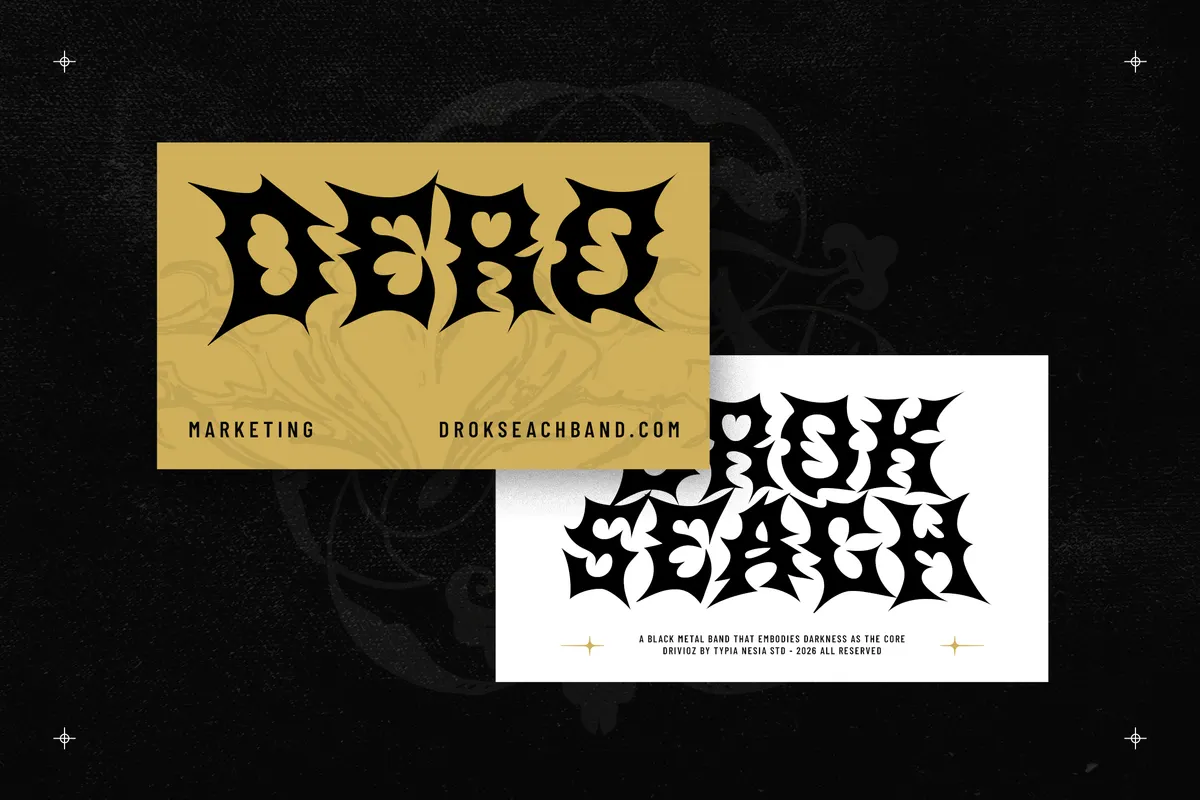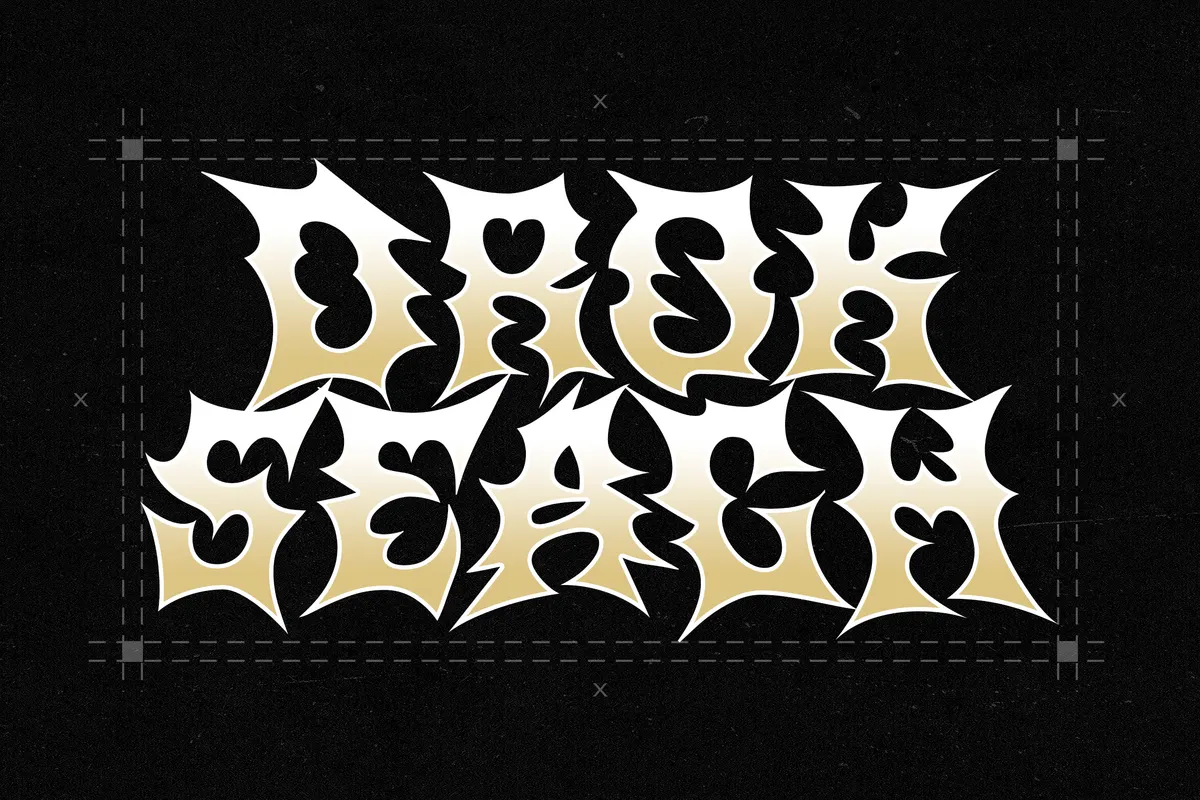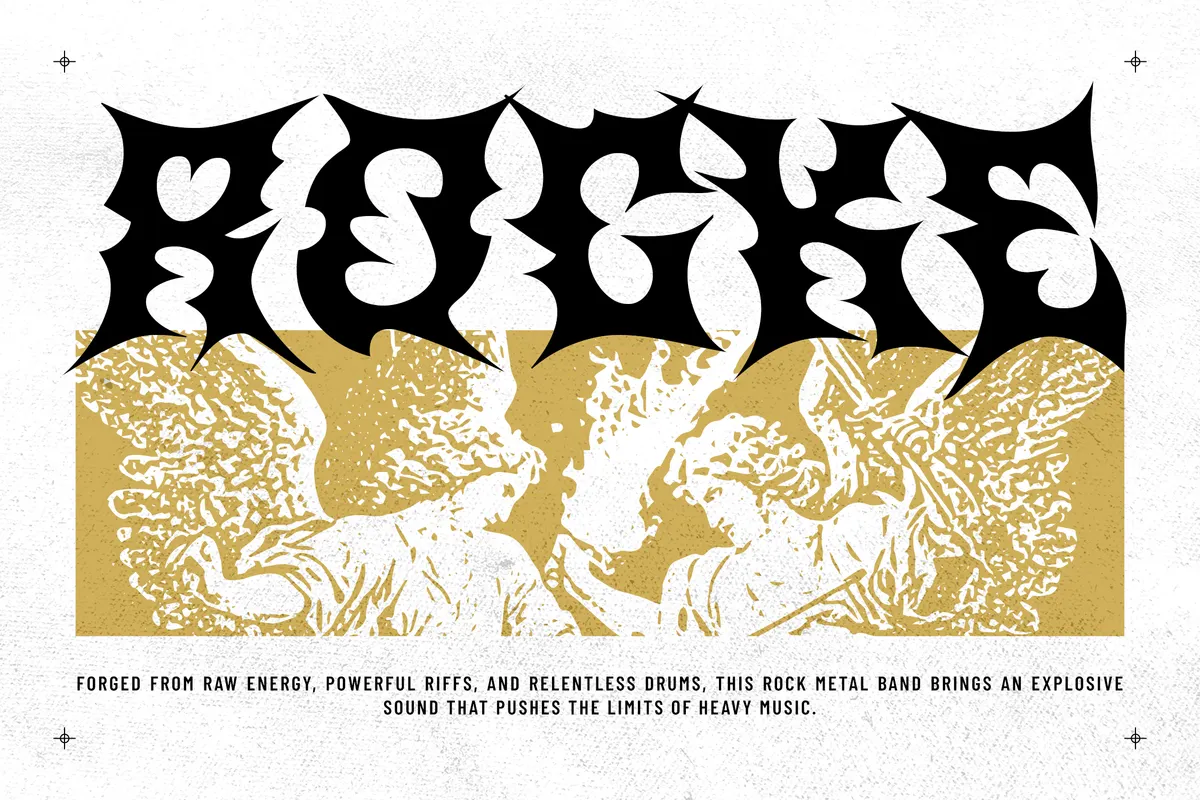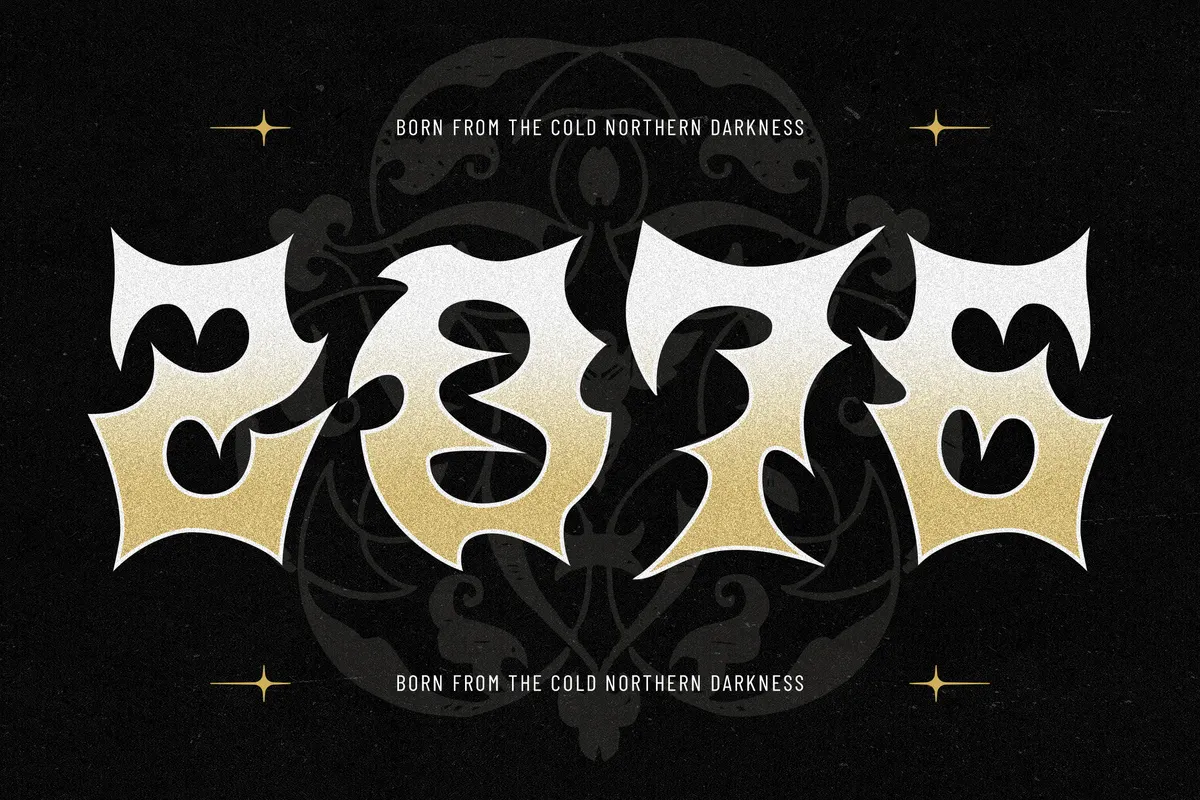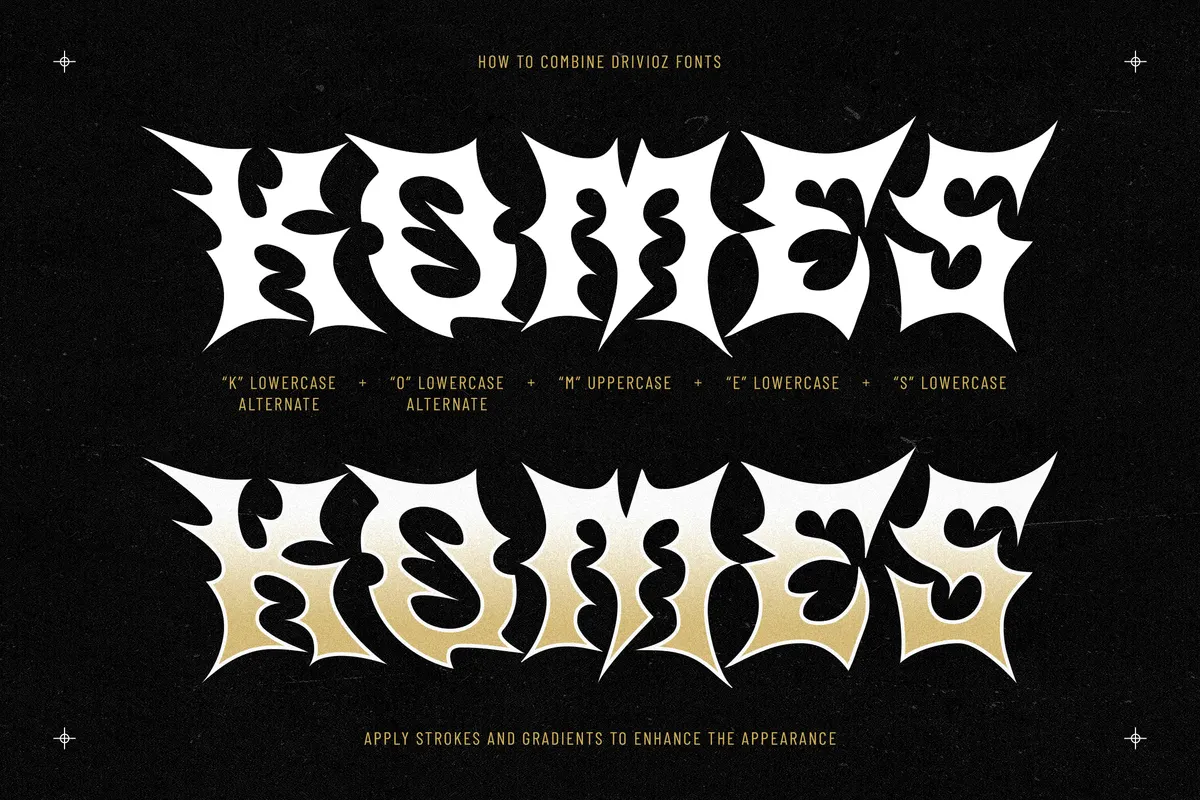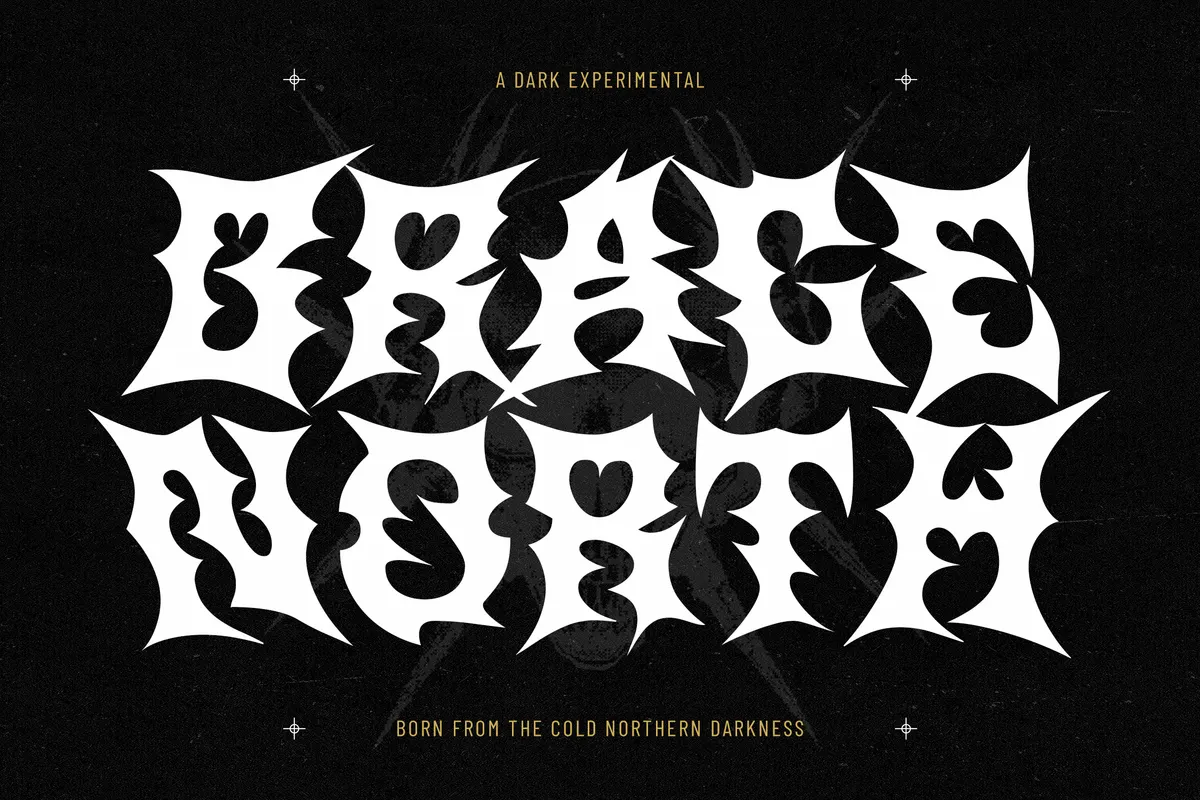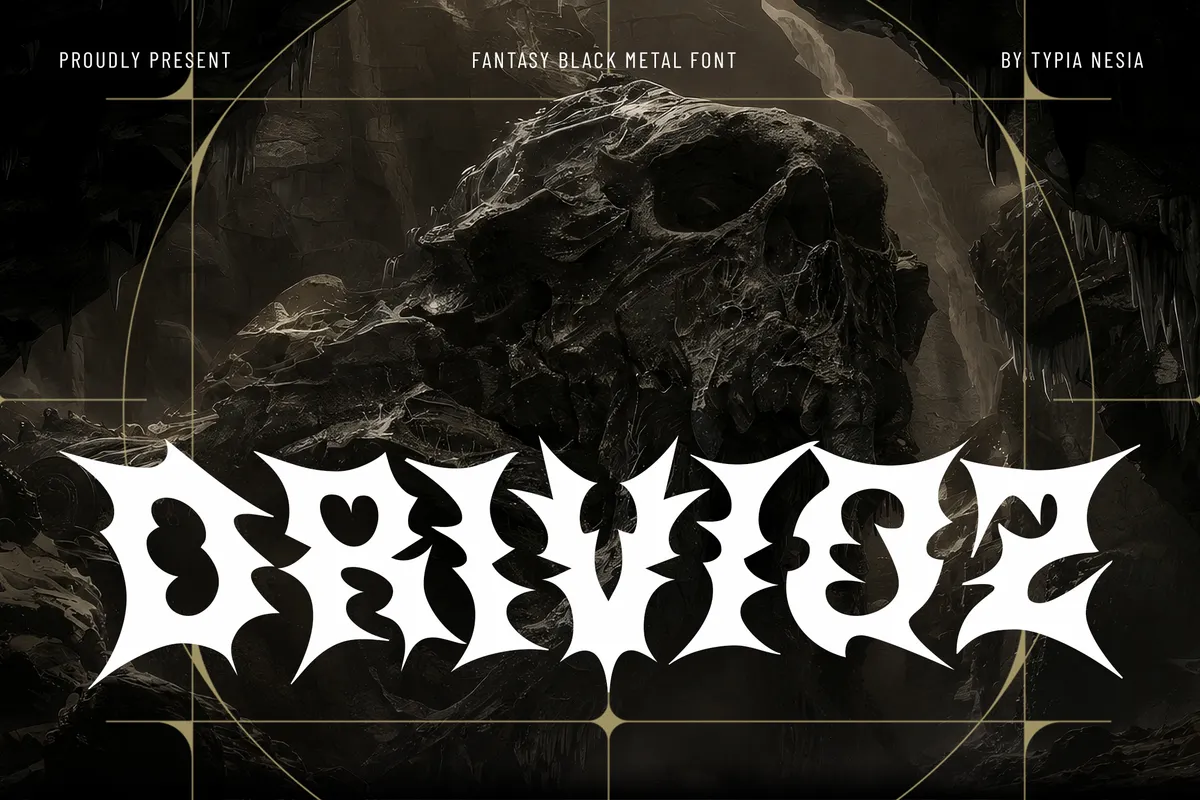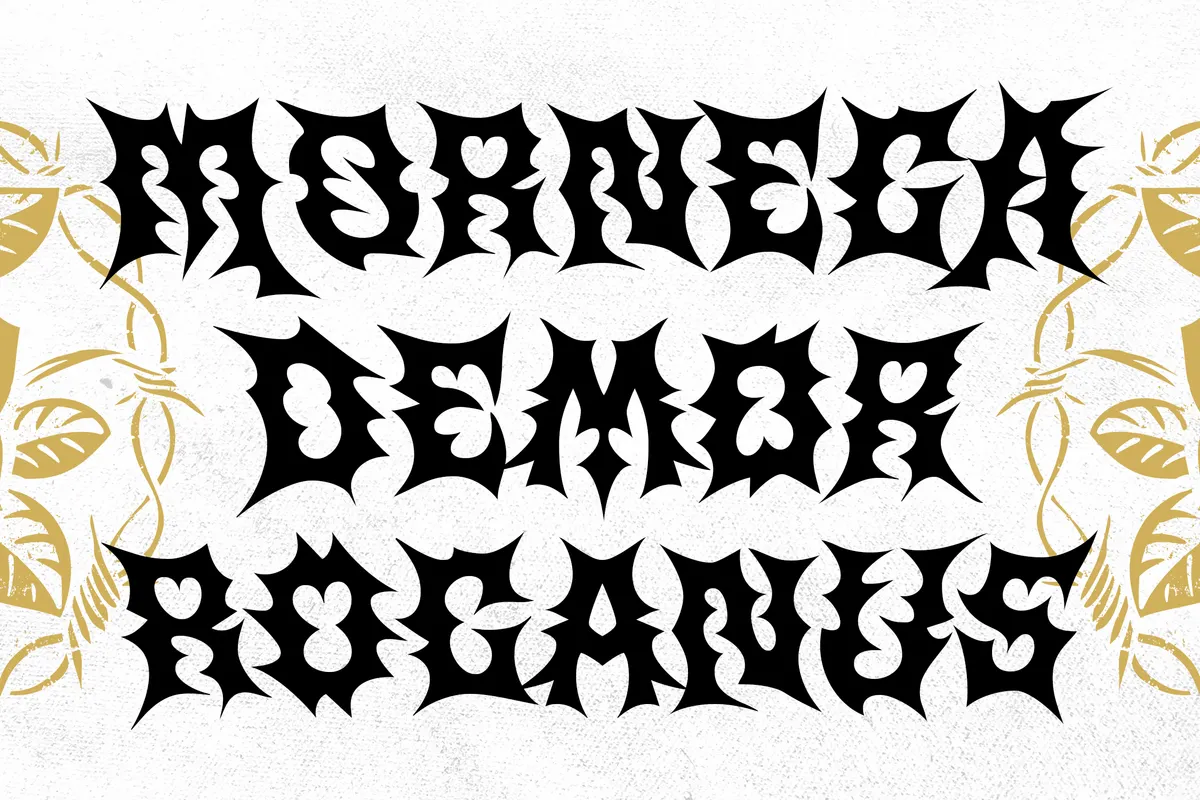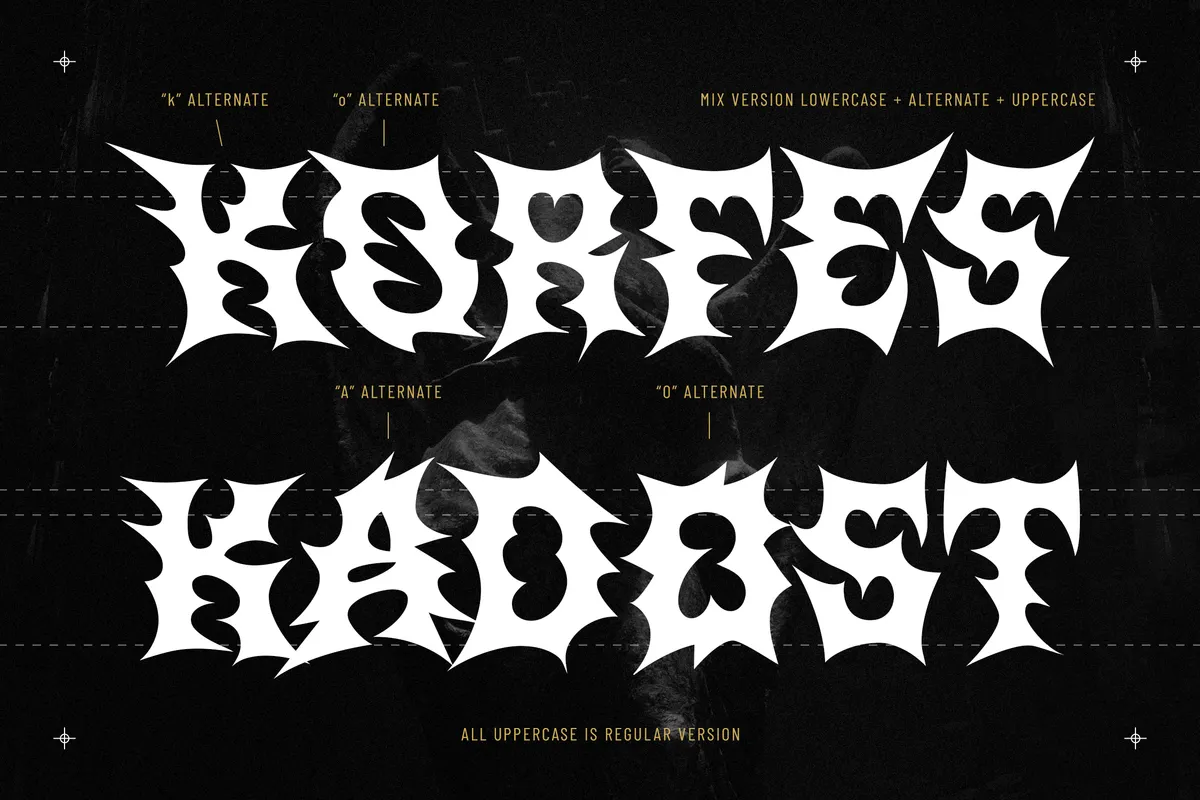
Drivioz - Spiky Black Metal Gothic Font
Drivioz
Drivioz is a gothic display font in the black-metal logo tradition, with every stroke splitting into thorns and counters cut as small hearts. Forty-nine alternates cover the whole lowercase and several capitals, so a band name can be built without two letters repeating the same spike.
The shapes need size and contrast to read, which puts the face on the loudest line of a layout. Use it for band logos, album covers, tour merch, dark fantasy game titles, tattoo flash, horror event posters, and streetwear graphics.